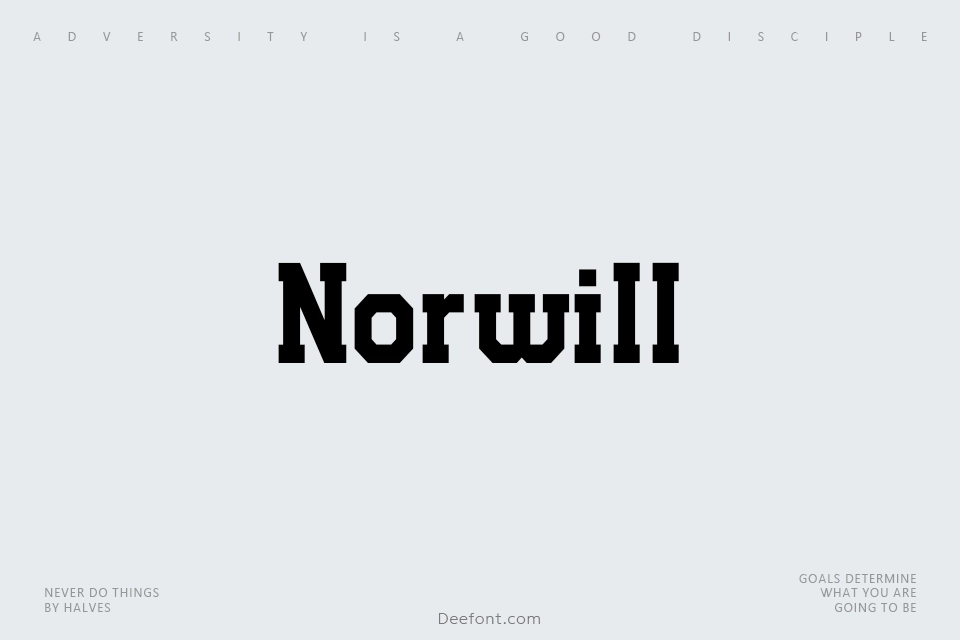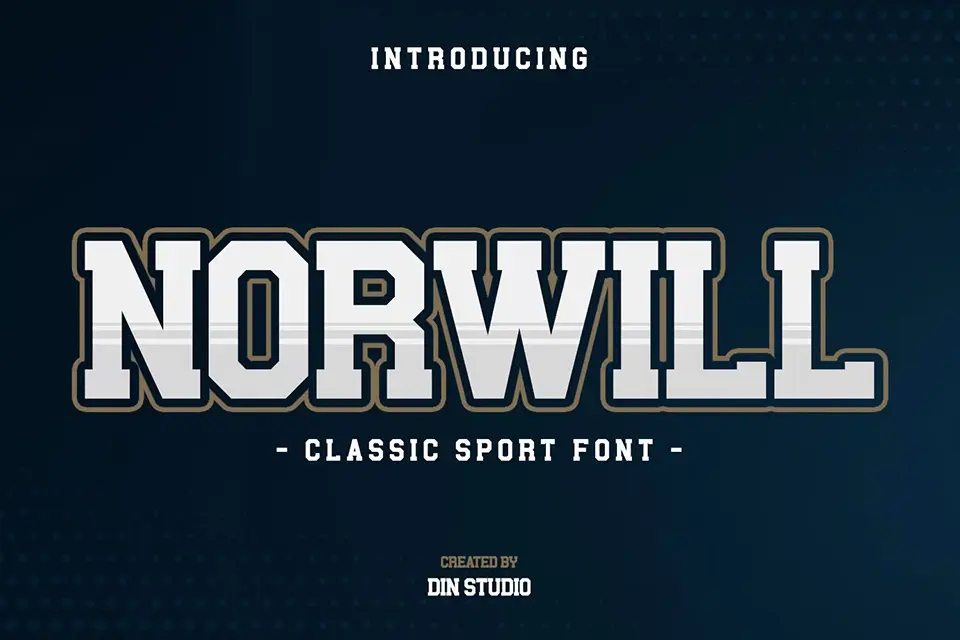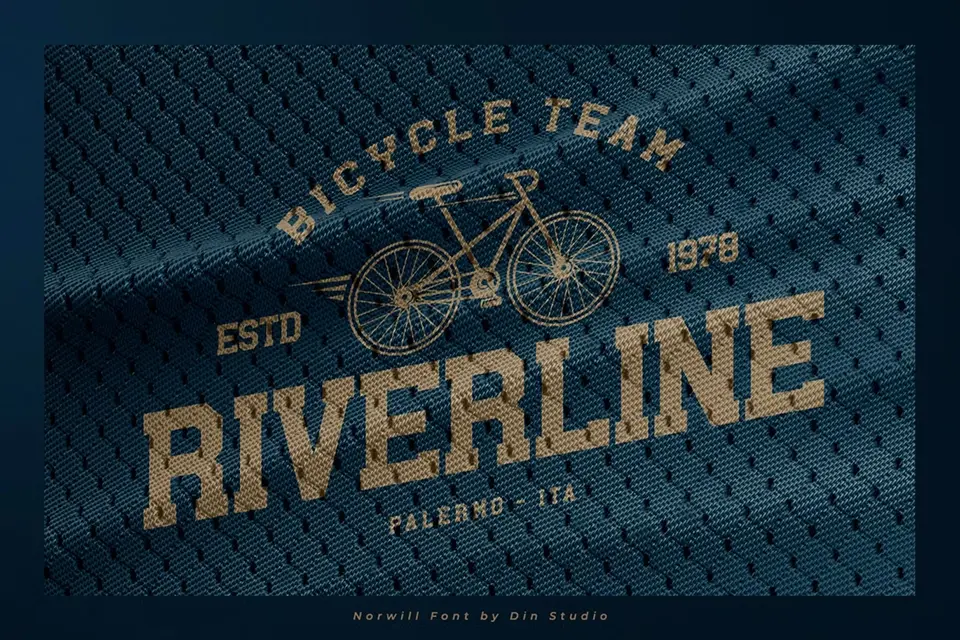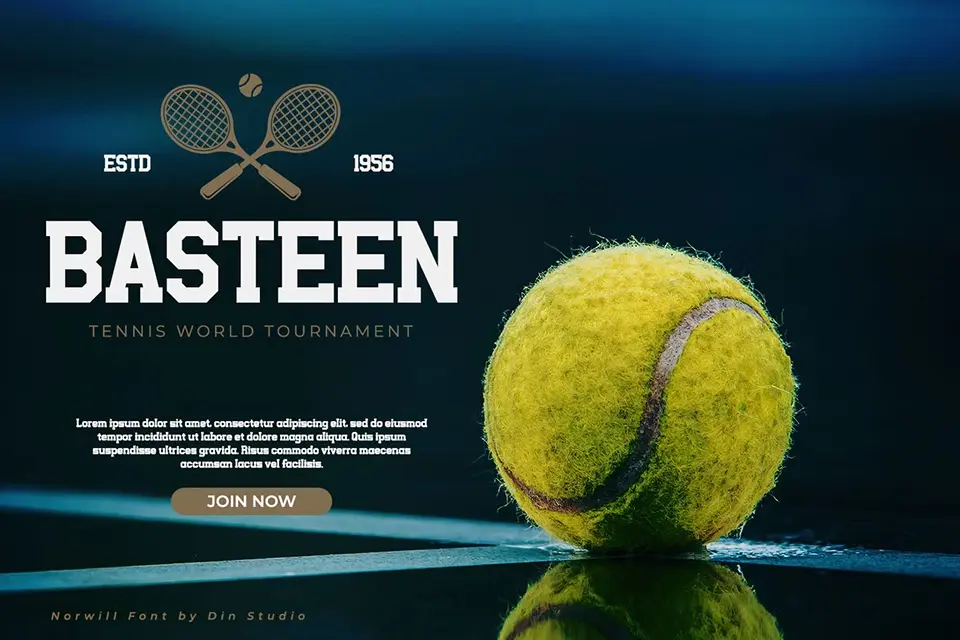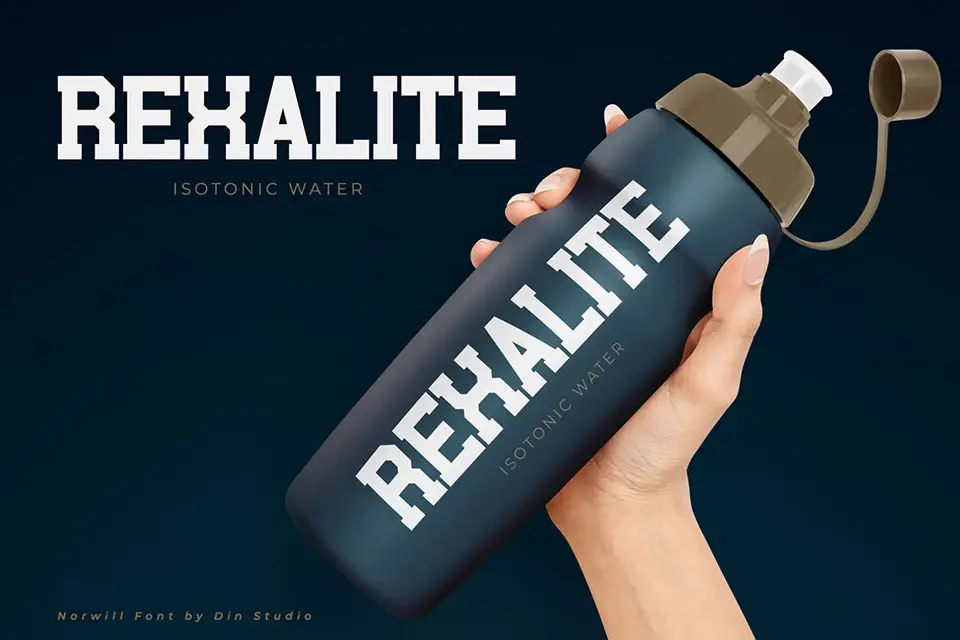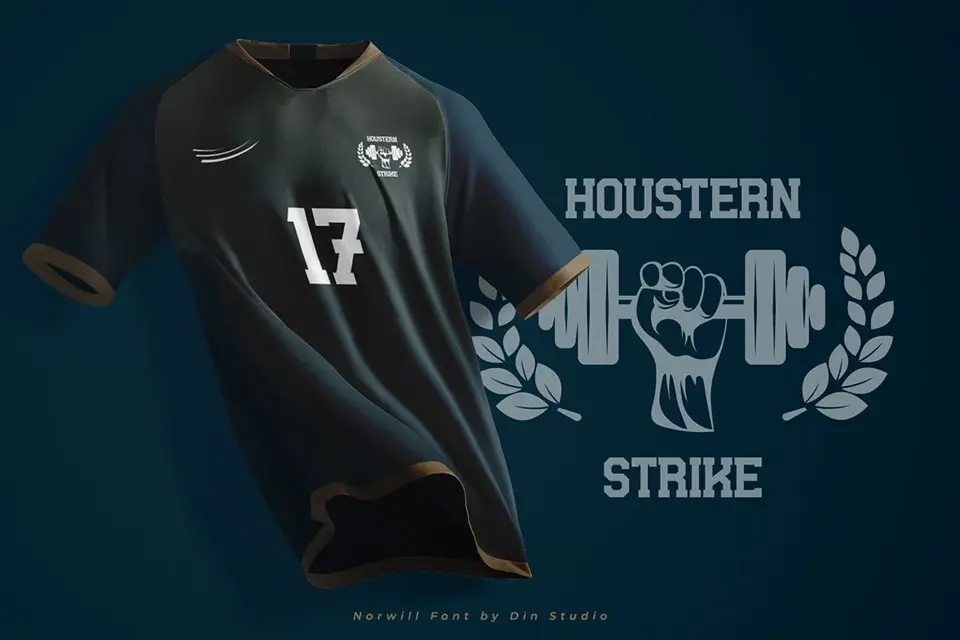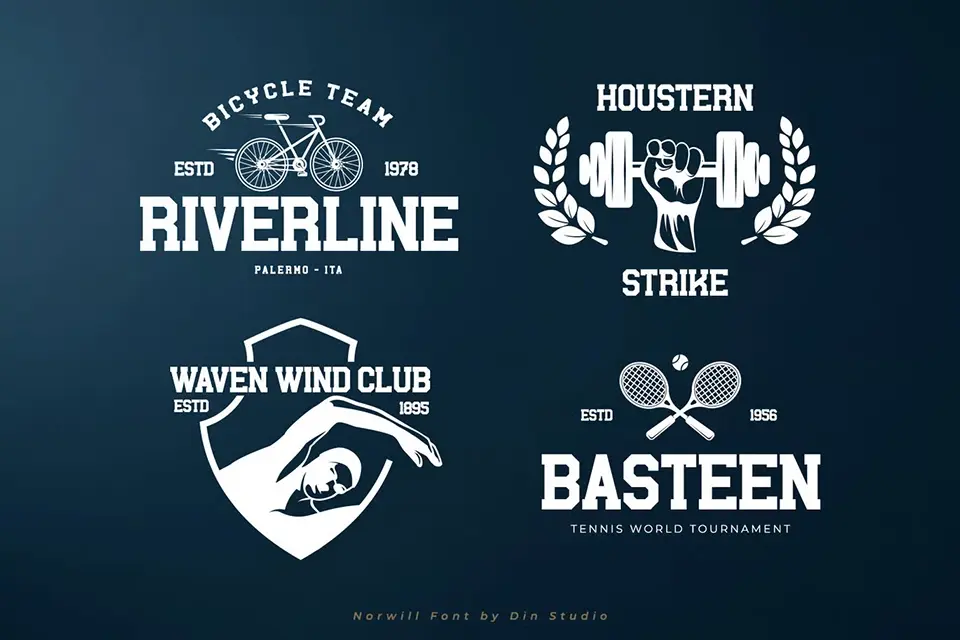
Norwill Font
Norwill is a strong, geometric, and impactful display typeface designed by Din Studio with an appealing old-school sports aesthetic. This modern display font features angular proportions and robust characters ideal for posters, branding, advertisements, headlines, and sports-related projects. With multilingual support and industrial-inspired design, Norwill delivers excellent readability for professional applications including logotypes, magazine covers, and packaging.